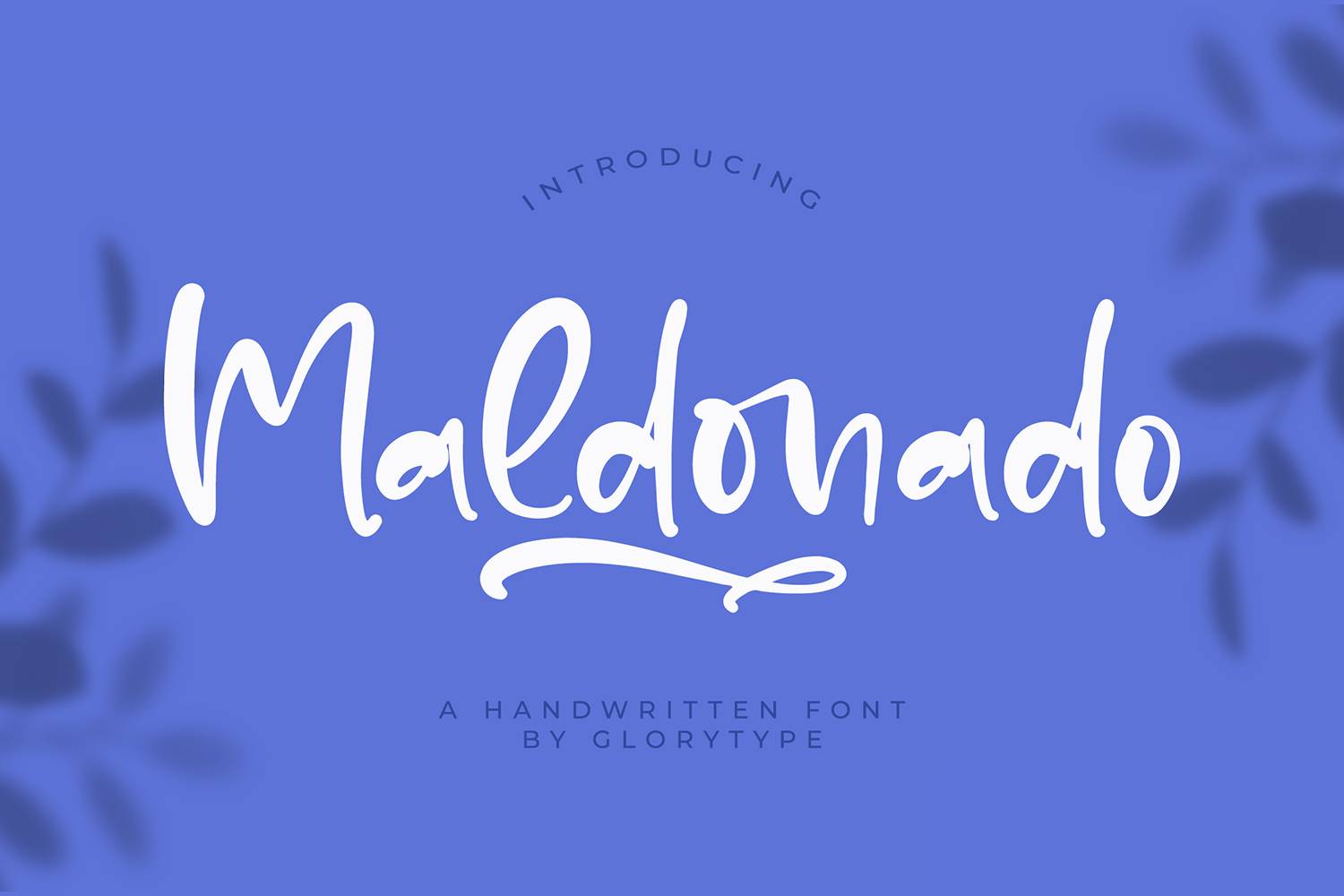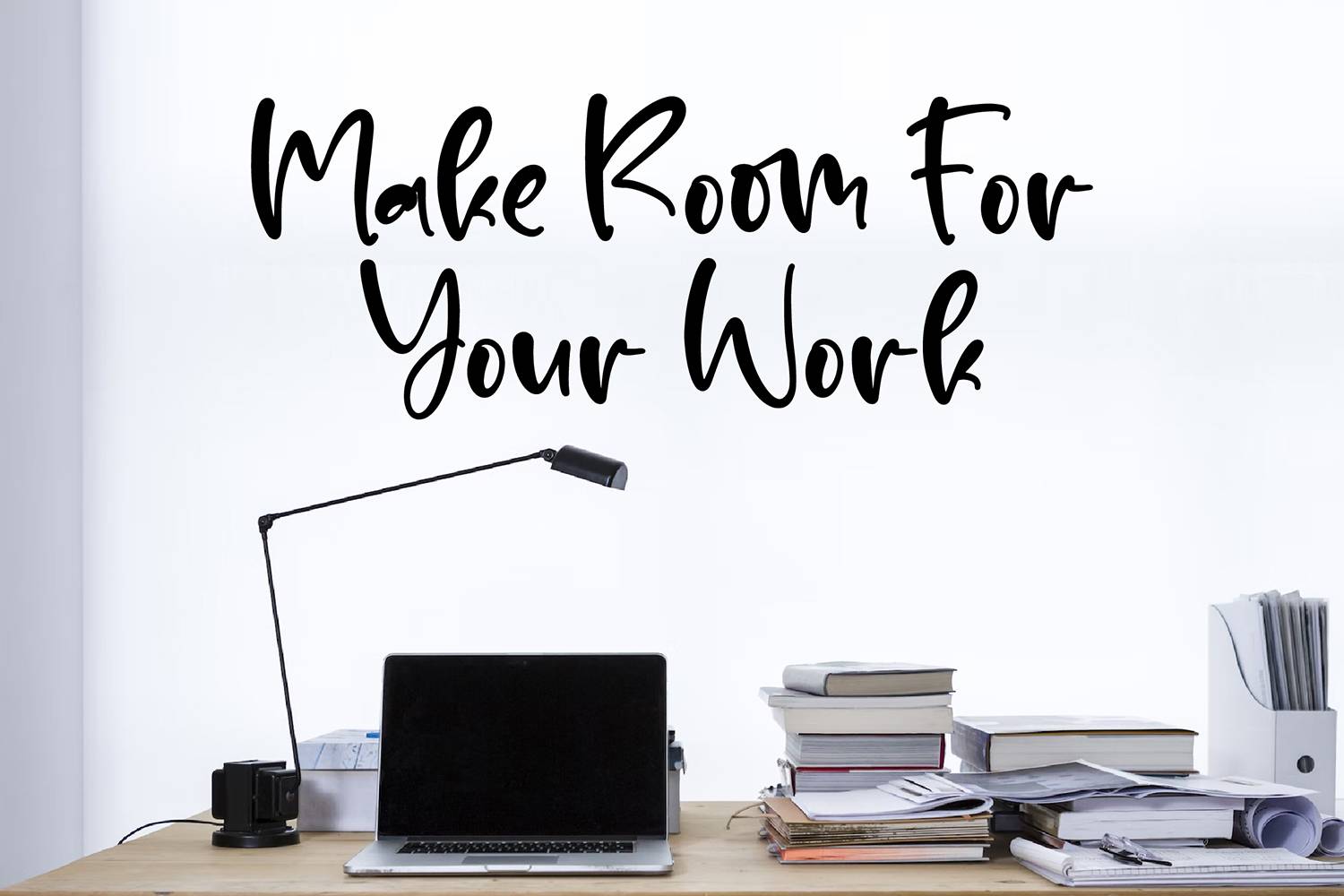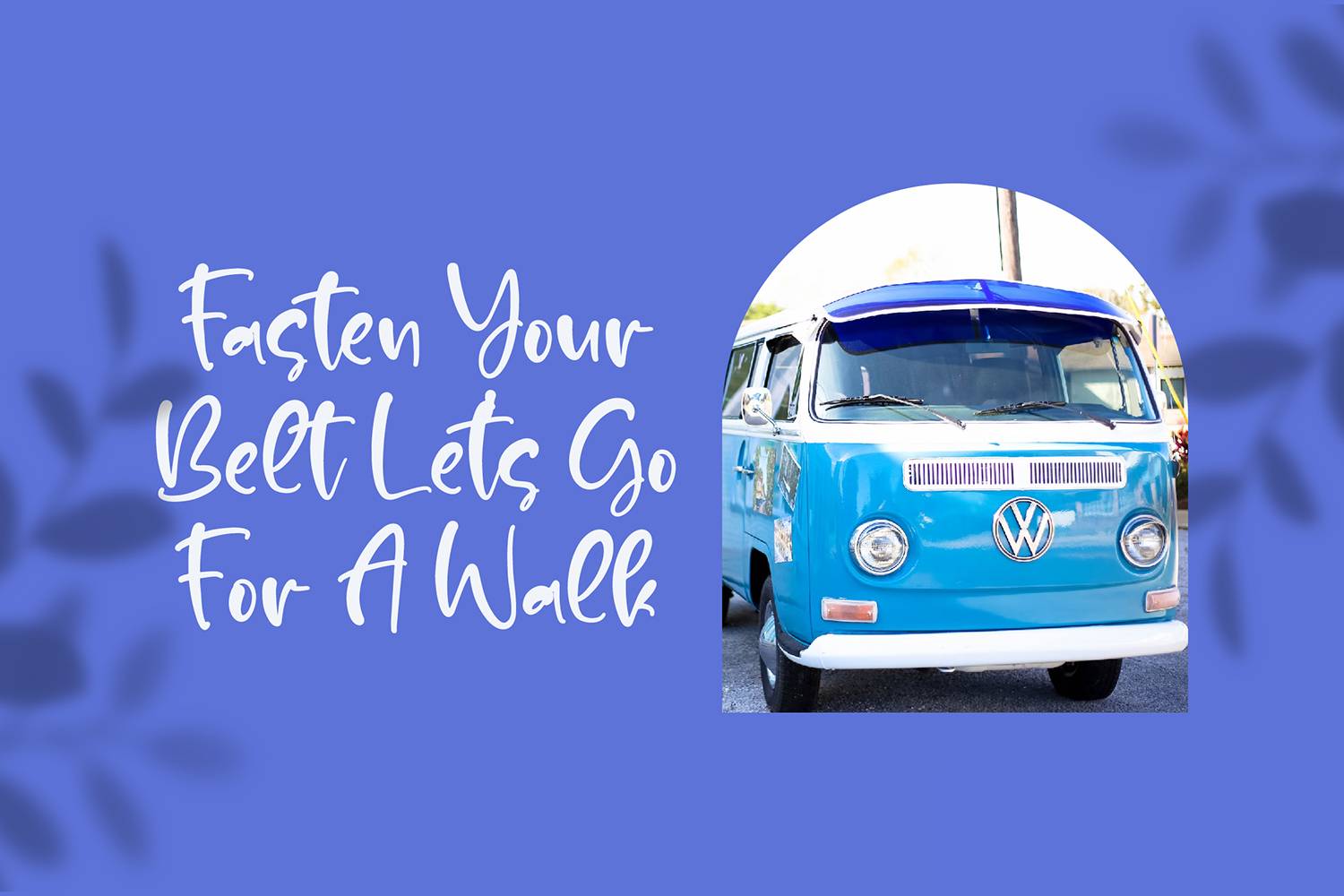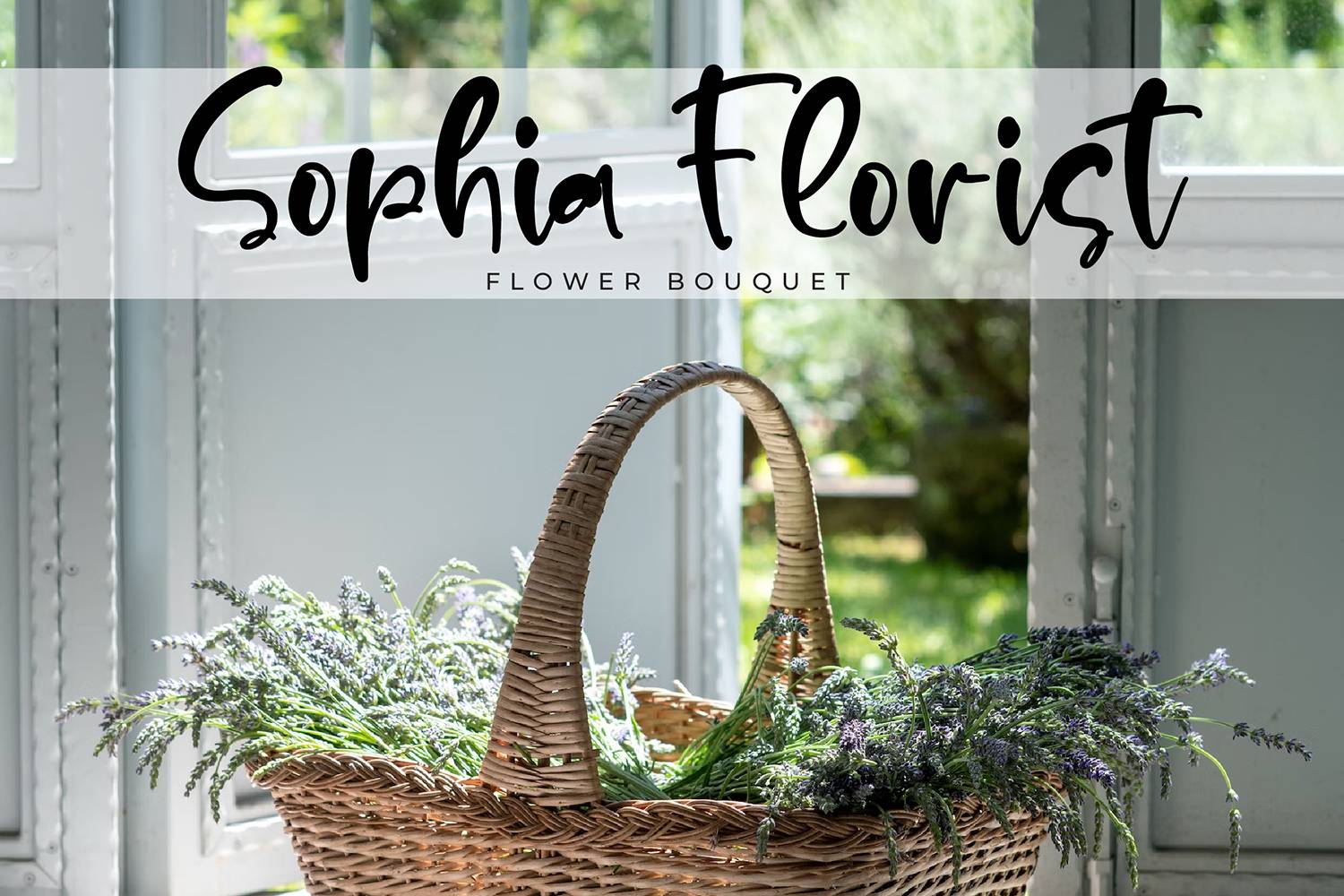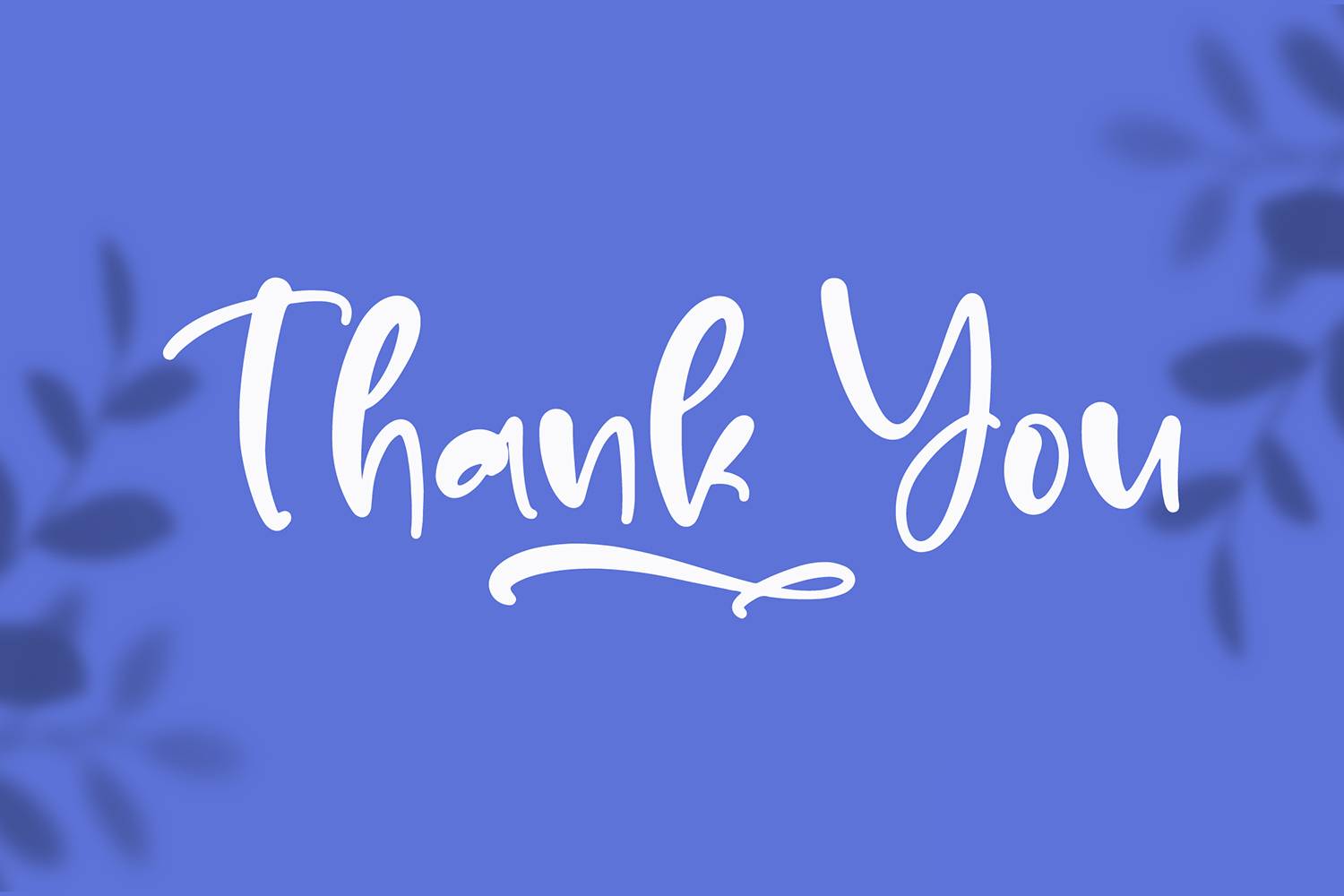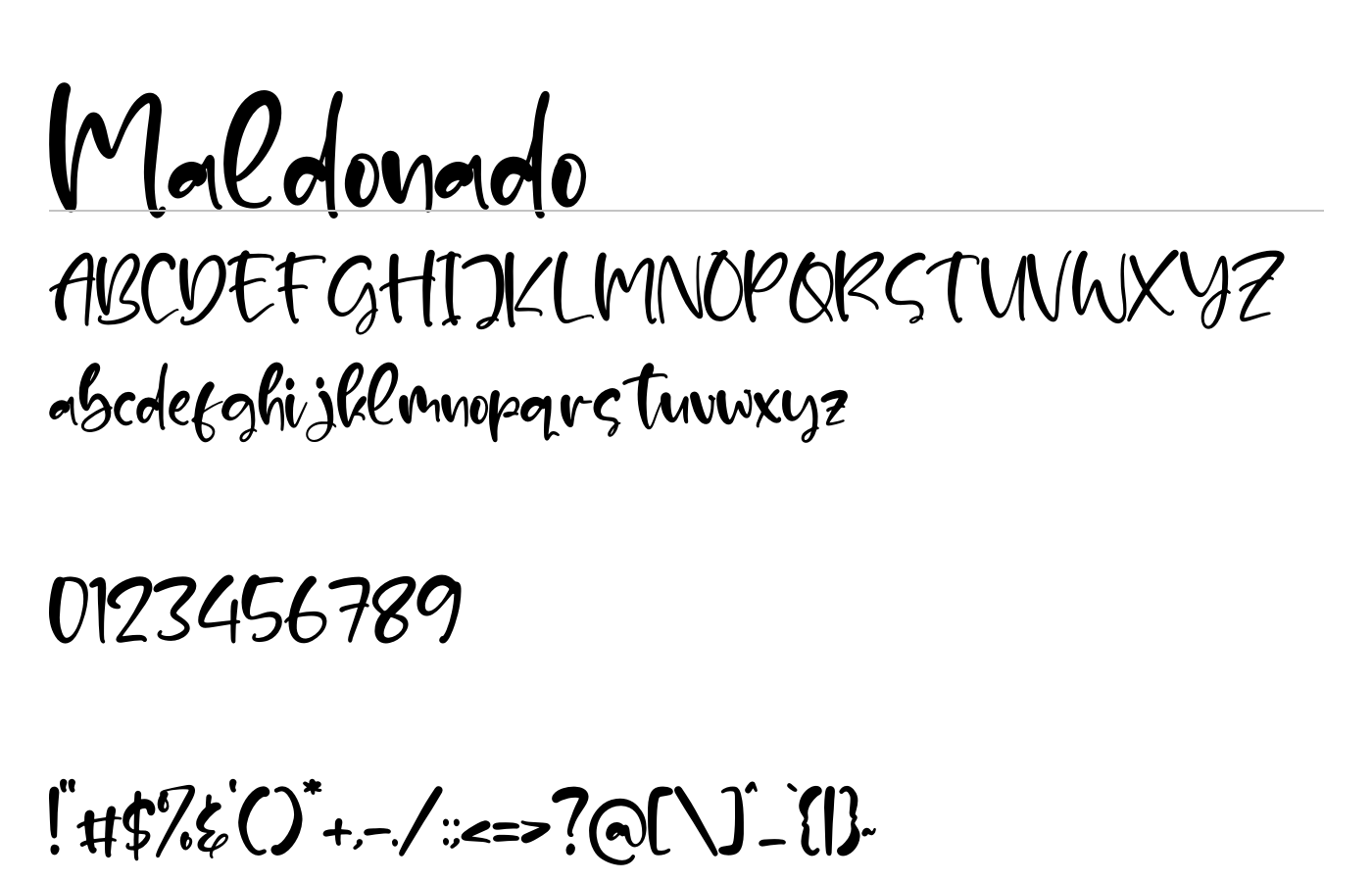
Maldonado is a casual, handwritten-style font with a lively and playful character, featuring varied stroke widths and a natural, imperfect flow that mimics real handwriting. Its tall, narrow letterforms and informal style make it perfect for personal projects, creative branding, and invitations where a friendly and approachable tone is desired. This font works especially well for headlines and logos that seek to convey warmth and personality.
Maldonado Font